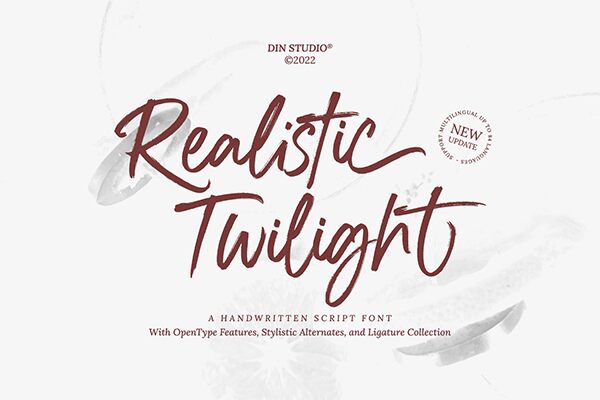
Realistic Twilight font is a handwritten brush font with light weight and condensed width by Din Studio. The font holds a modern aesthetic with a signature style, casual elegance, and just the right amount of expressiveness for an artistic flair to go alongside the refined look.
This free handwritten font is designed especially for posters, quotes, logotypes, and even business cards. It perfectly elevates branding projects and covers social media images beautifully. Other possible uses include greeting cards and wedding invitations among other stationery items.